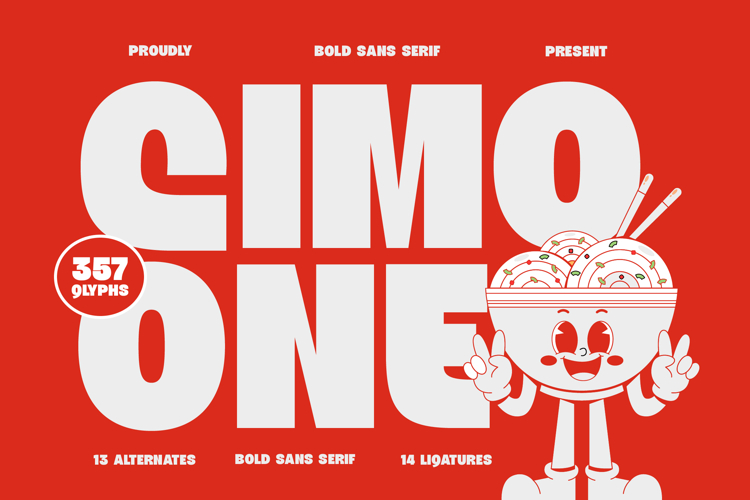
Cimo One - Bold Sans Serif Font
Unleash undeniable visual impact with Font Cimo One - Bold Sans Serif Font Sans Serif, a typeface meticulously crafted to command attention. This distinctive Bold Sans Serif font embodies a perfect blend of modern sophistication and approachable charisma, making it an immediate focal point in any design. Its robust, clean lines and confident presence ensure your message is not just seen, but felt, establishing a powerful connection with your audience from the first glance.
Elevate your creative projects with the remarkable design flexibility of Font Cimo One - Bold Sans Serif Font Sans Serif. Boasting an impressive 357 glyphs, 13 alternates, and 14 ligatures, this font offers unparalleled customization. Designers will appreciate its exceptional readability and harmonious letterforms, which maintain their integrity even at varying sizes. These comprehensive features provide the tools necessary to craft truly unique and cohesive visual narratives, ensuring every character contributes to a polished aesthetic.
Discover the perfect match for your high-impact design needs. Font Cimo One - Bold Sans Serif Font Sans Serif is ideally suited for luxury branding, bold logo design, eye-catching packaging, and dynamic editorial headlines. Its assertive yet friendly character makes it perfect for poster design, app interfaces, and any project demanding a strong visual statement with uncompromising clarity. Choose this font to imbue your creations with gravitas and contemporary flair.
Expand your global reach and ensure your designs resonate across cultures. With its extensive multilingual support, Font Cimo One - Bold Sans Serif Font Sans Serif adapts seamlessly across global markets, making it incredibly versatile for international projects. This comprehensive language coverage underscores its professional appeal and ensures your brand communications maintain consistent quality and impact, regardless of geographical boundaries, securing its place as an essential asset for any globally-minded designer.